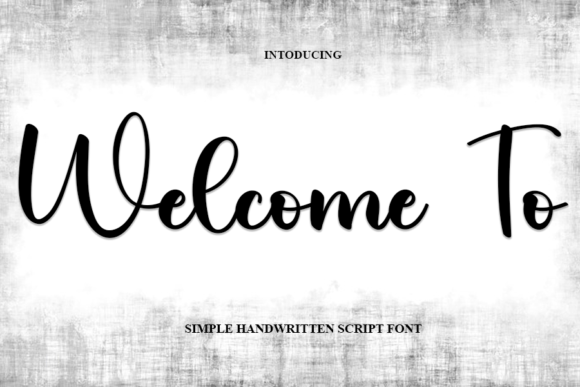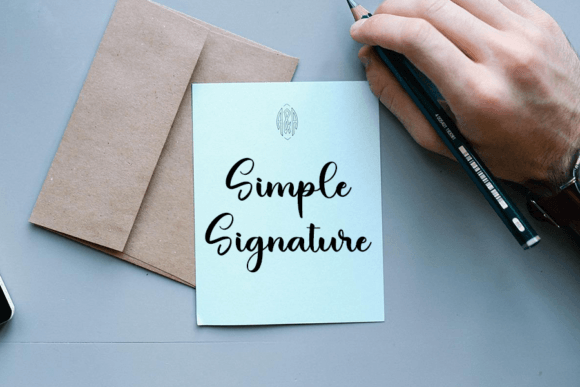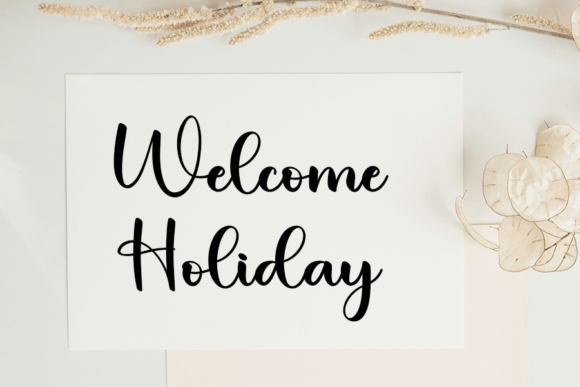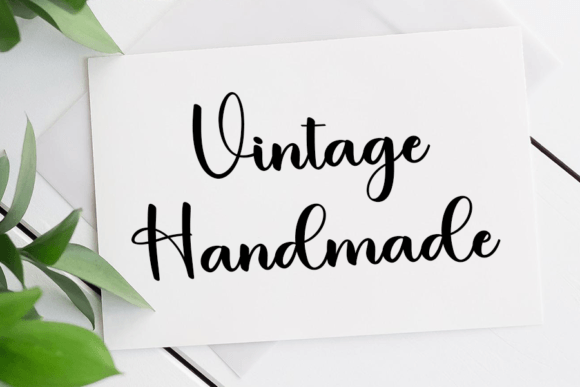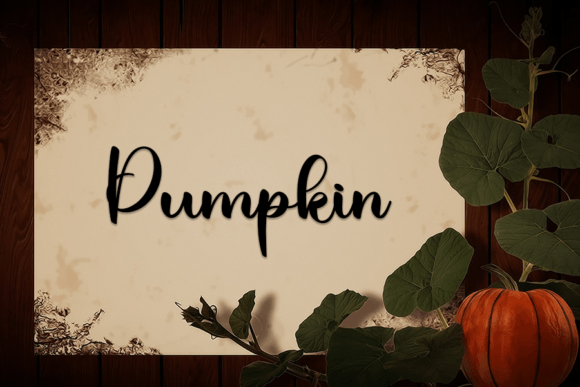
Welcome to Font
About Welcome to Font
“Welcome To” is an exceptional handwritten script font that effortlessly blends a modern sensibility with a flawless form, drawing inspiration from the elegance of classic calligraphy. This font strikes a harmonious balance, offering a varied and well-balanced design that will undoubtedly elevate the visual appeal of your creative projects.
This typeface captures the essence of classic calligraphy, infusing it with a contemporary twist to create a unique and captivating style. The intricate details and graceful strokes of “Welcome To” pay homage to the timeless art of calligraphy, while its clean and polished appearance adds a refreshing modern touch.
One of the standout features of “Welcome To” is its balance – it’s not excessively delicate nor overly bold. This equilibrium makes it an incredibly versatile choice, capable of enhancing a wide range of design applications. Whether you’re working on print materials, digital graphics, websites, or any other creative endeavor, “Welcome To” adapts seamlessly to your needs.
The meticulous craftsmanship and impeccable execution of “Welcome To” make it a perfect choice for projects where aesthetics and visual impact are of utmost importance. It excels in crafting invitations for special events, creating logos that exude sophistication, or simply enhancing the overall visual appeal of your content.
Furthermore, “Welcome To” is more than just a font; it’s a design asset that infuses character and charm into your projects. Its handwritten appearance adds a personal and authentic touch, making your designs feel warm and inviting. It’s an excellent choice when you want to inject a sense of humanity and approachability into your work.
In summary, “Welcome To” is a remarkable handwritten script font that seamlessly marries classic calligraphy with contemporary design. Its ability to strike a perfect balance between tradition and modernity, its adaptability to diverse creative projects, and its capacity to imbue a personal touch into your designs make it an invaluable addition to your font collection. Elevate your projects with the timeless elegance and modern allure of “Welcome To” – a font meticulously designed to enhance the beauty of your creations.